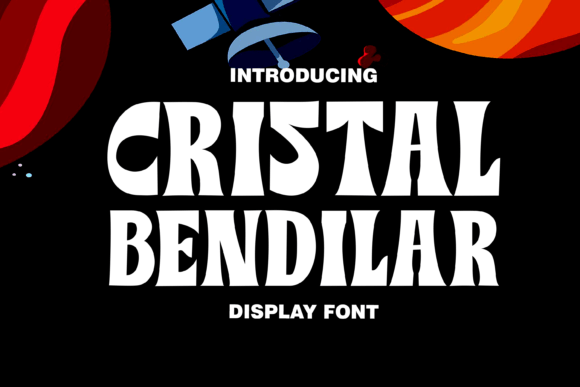
Prepare yourself for the introduction of Cristal Bendilar, an enchanting and modern variable display font family that will transform your digital creations into captivating masterpieces. With its subtle fusion of sans serif and serif elements, Cristal Bendilar adds a touch of playfulness and sophistication to any project. Explore the endless possibilities with variable weight and width options, allowing you to meticulously craft the perfect typographic balance for your designs.
Immerse yourself in the world of Cristal Bendilar, a font family that has captured the hearts of designers and creatives worldwide. Its whimsical charm and meticulous attention to detail make it the perfect choice for children's books, branding, and playful packaging designs. Bring your stories to life with a font that exudes joy, wonder, and boundless imagination.
With Cristal Bendilar, you hold the key to unlocking a world of creative expression. Create eye-catching headlines that dance off the page, elegant body copy that flows seamlessly, and logos that leave a lasting impression. The subtle variations in weight and width allow you to fine-tune the look and feel of your designs, ensuring that each element complements the other in perfect harmony.
Welcome to the realm of Cristal Bendilar, where creativity knows no bounds. Experience the joy of seamless design, where your imagination takes center stage and your creations captivate audiences with their charm and elegance. Let Cristal Bendilar be your guiding light as you embark on a journey of typographic exploration and discovery.